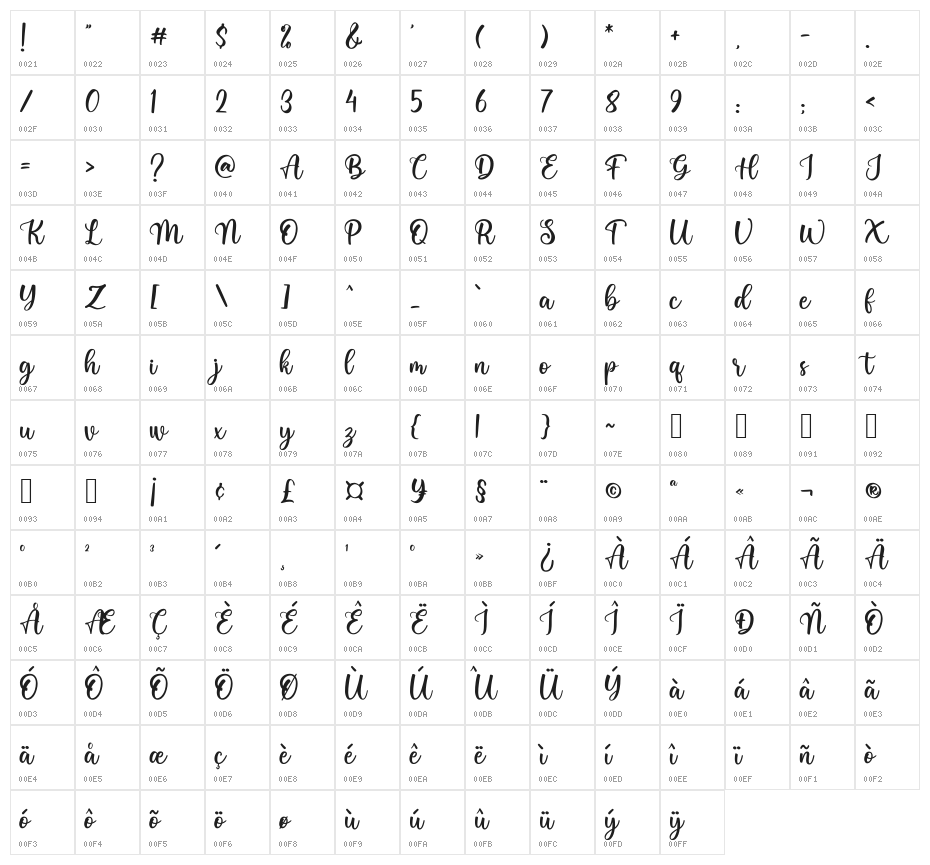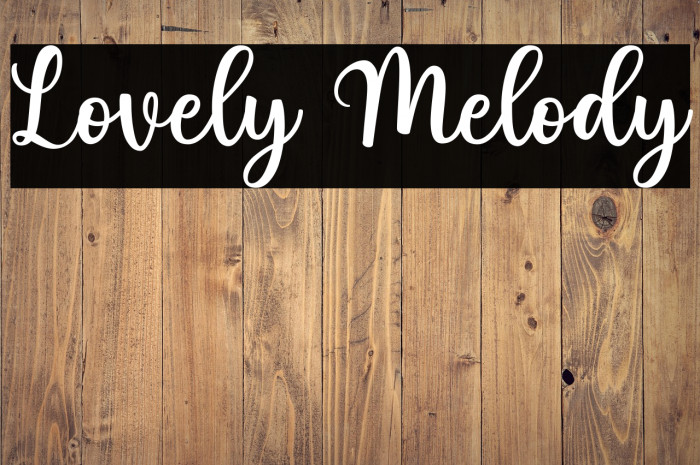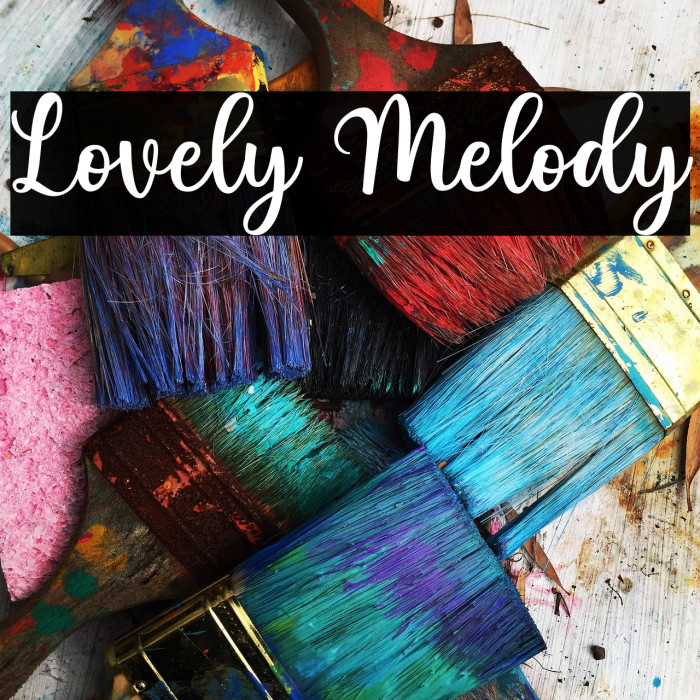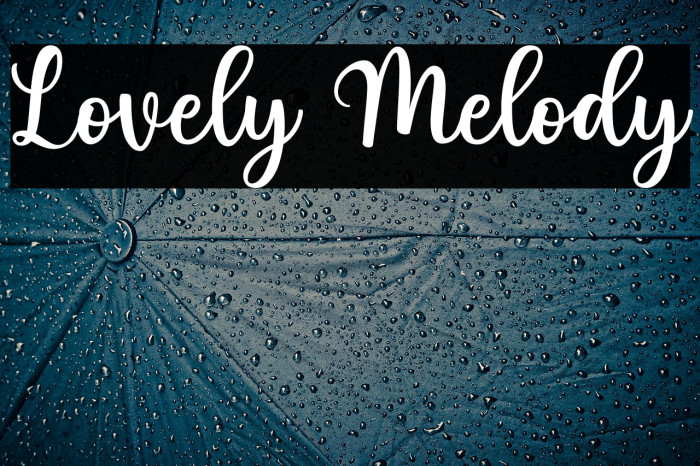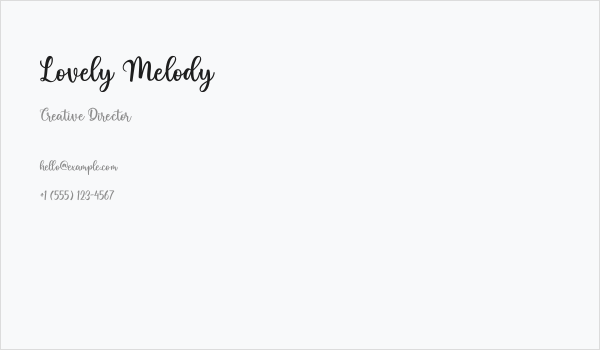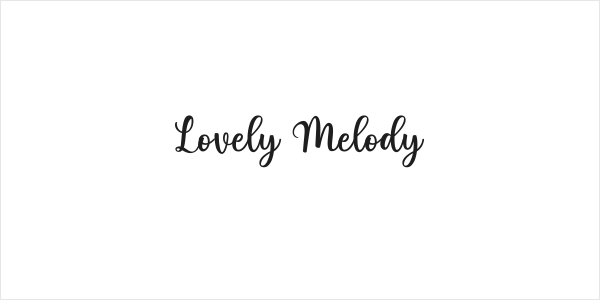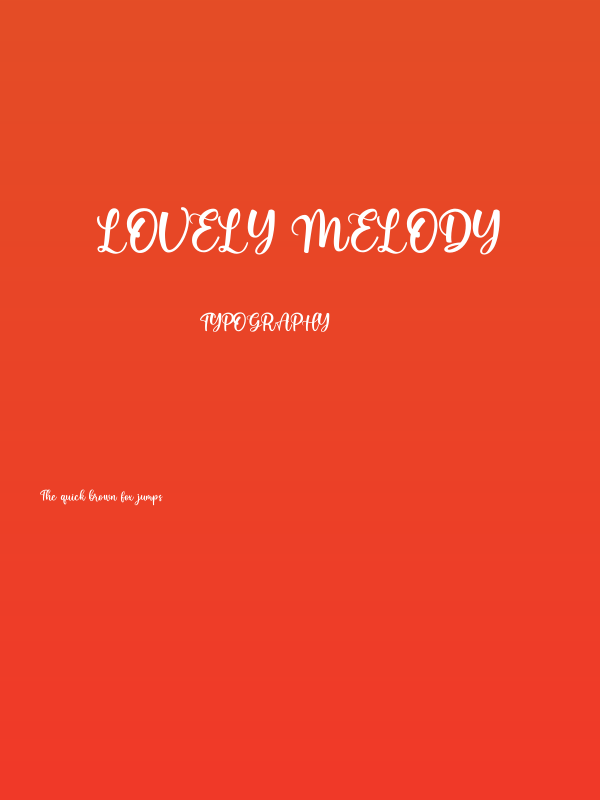
Lovely Melody Font
Lovely Melody Description
This font exudes a charming and elegant script style, characterized by its flowing and interconnected letterforms. The uppercase letters are gracefully designed with a slight slant, adding a touch of sophistication. The lowercase letters maintain a consistent flow, enhancing readability while retaining an artistic flair. The numerals are well-balanced, complementing the overall aesthetic. Special characters are thoughtfully integrated, maintaining the font's cohesive look. This font is perfect for projects that require a personal and stylish touch, such as invitations, branding, and decorative designs.
| Proposed Projects | Ideal for wedding invitations, branding, greeting cards, and decorative projects. |